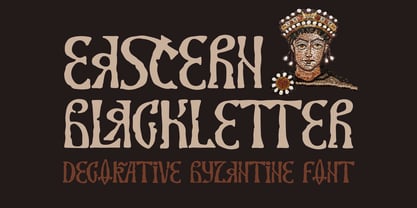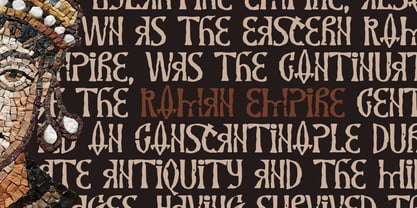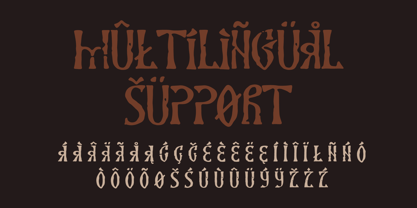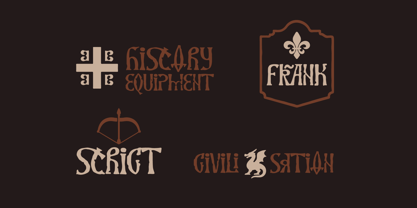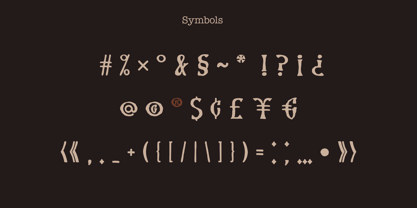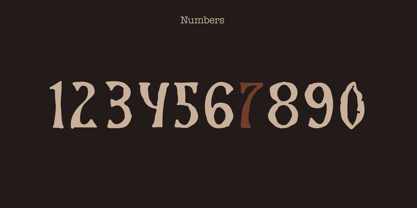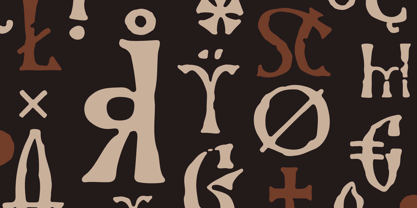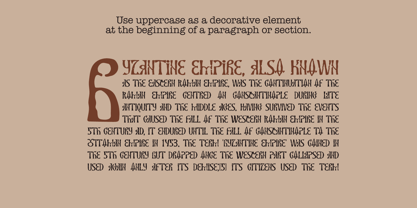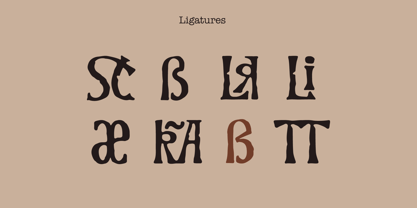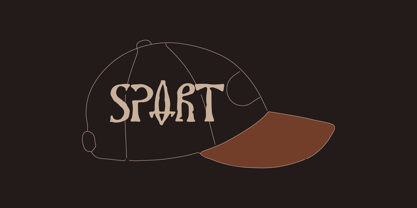
Eastern Blackletter
by Kaer
The Eastern Blackletter Font Family was designed by Roman Korolev and published by Kaer. Eastern Blackletter contains 1 styles. More about this family
Eastern Blackletter is a decorative Byzantine display font inspired by the lettering of the 1522 edition of Akathist to Archangel Michael. Perfect for logos, branding, posters, book covers, games, and historical or fantasy designs.
Unlike traditional Western blackletter fonts, it offers a distinctive Eastern aesthetic with strong historical character.
• Uppercase & lowercase
• Numbers & punctuation
• Multilingual Latin support